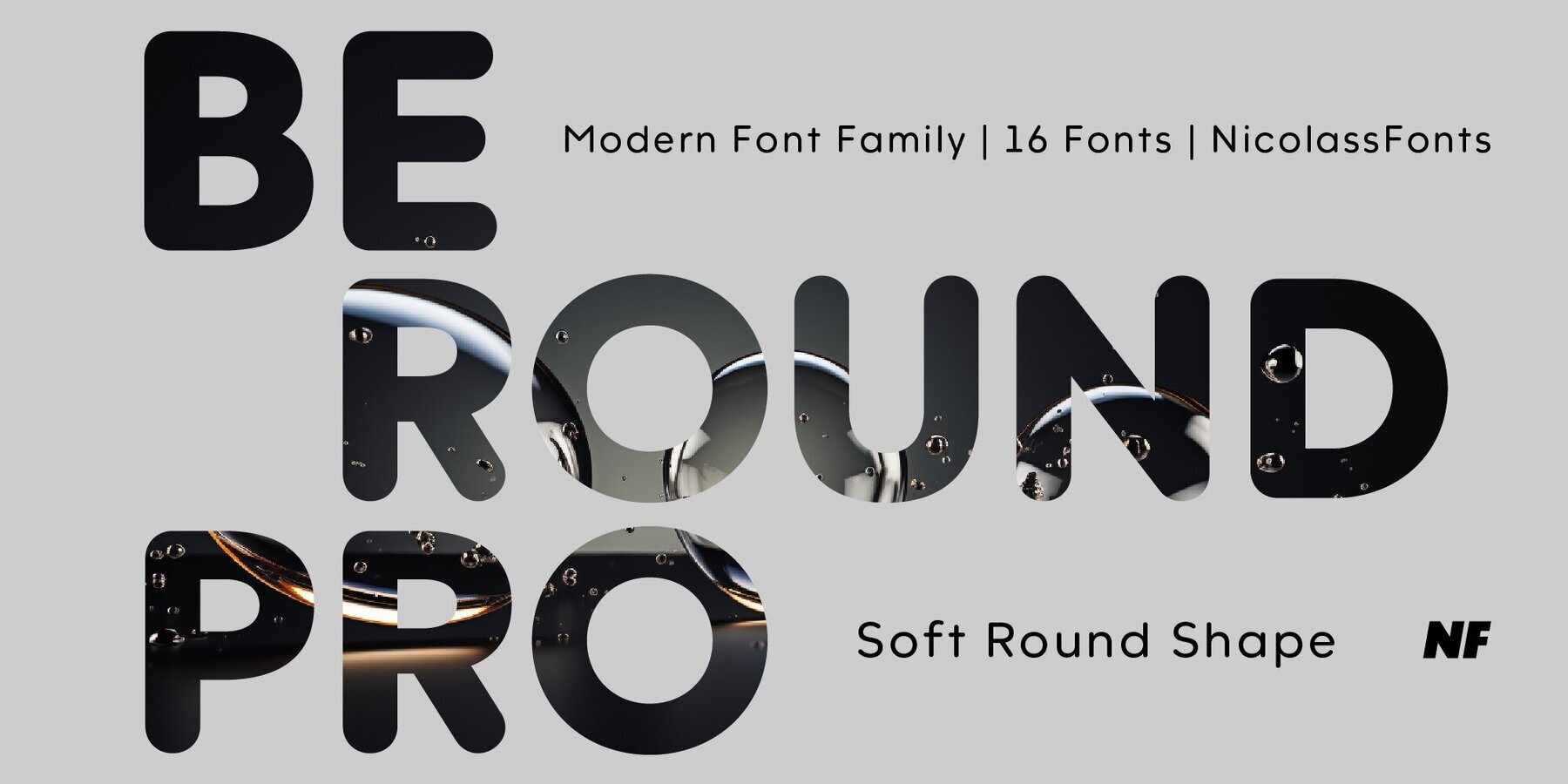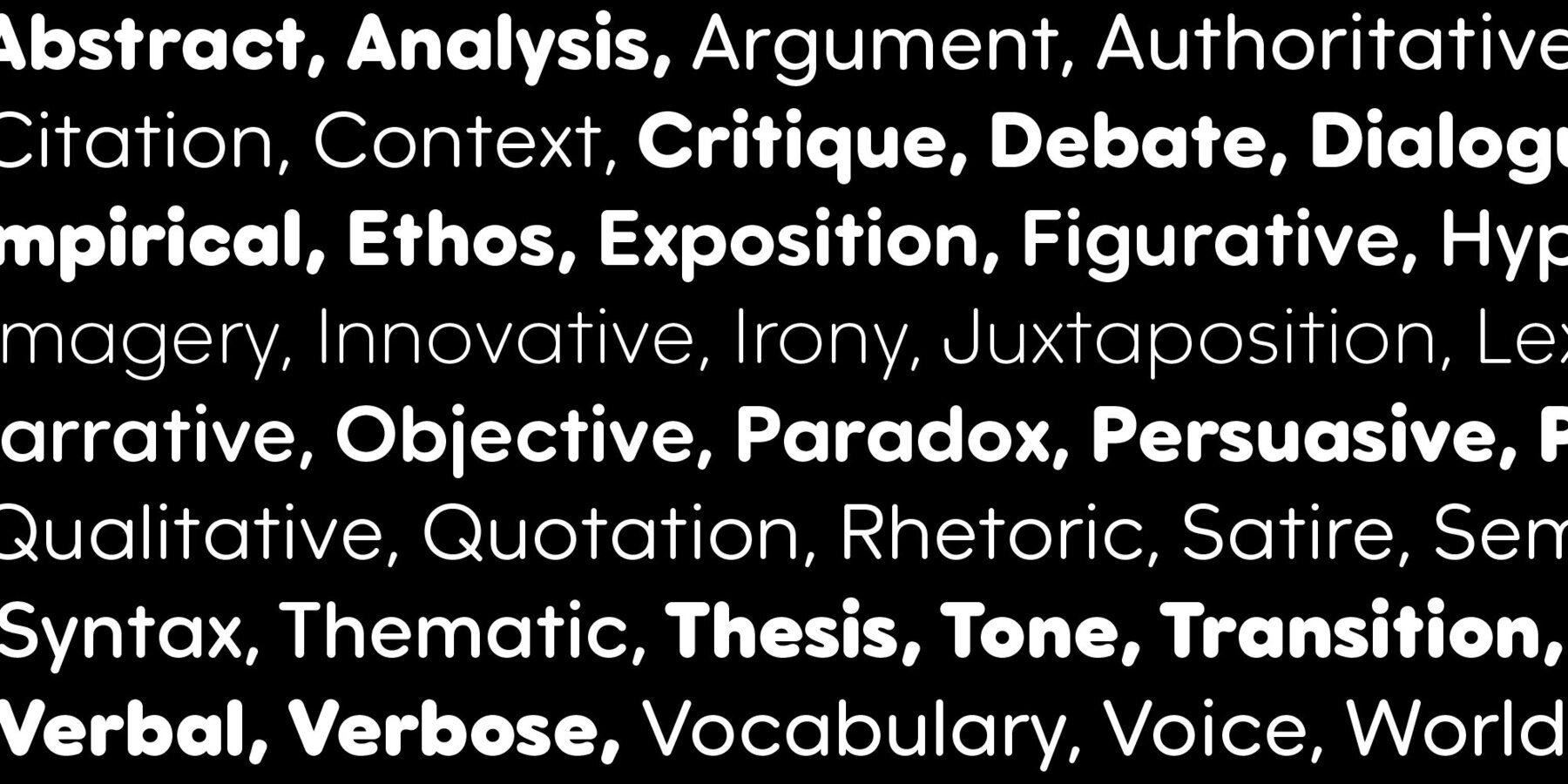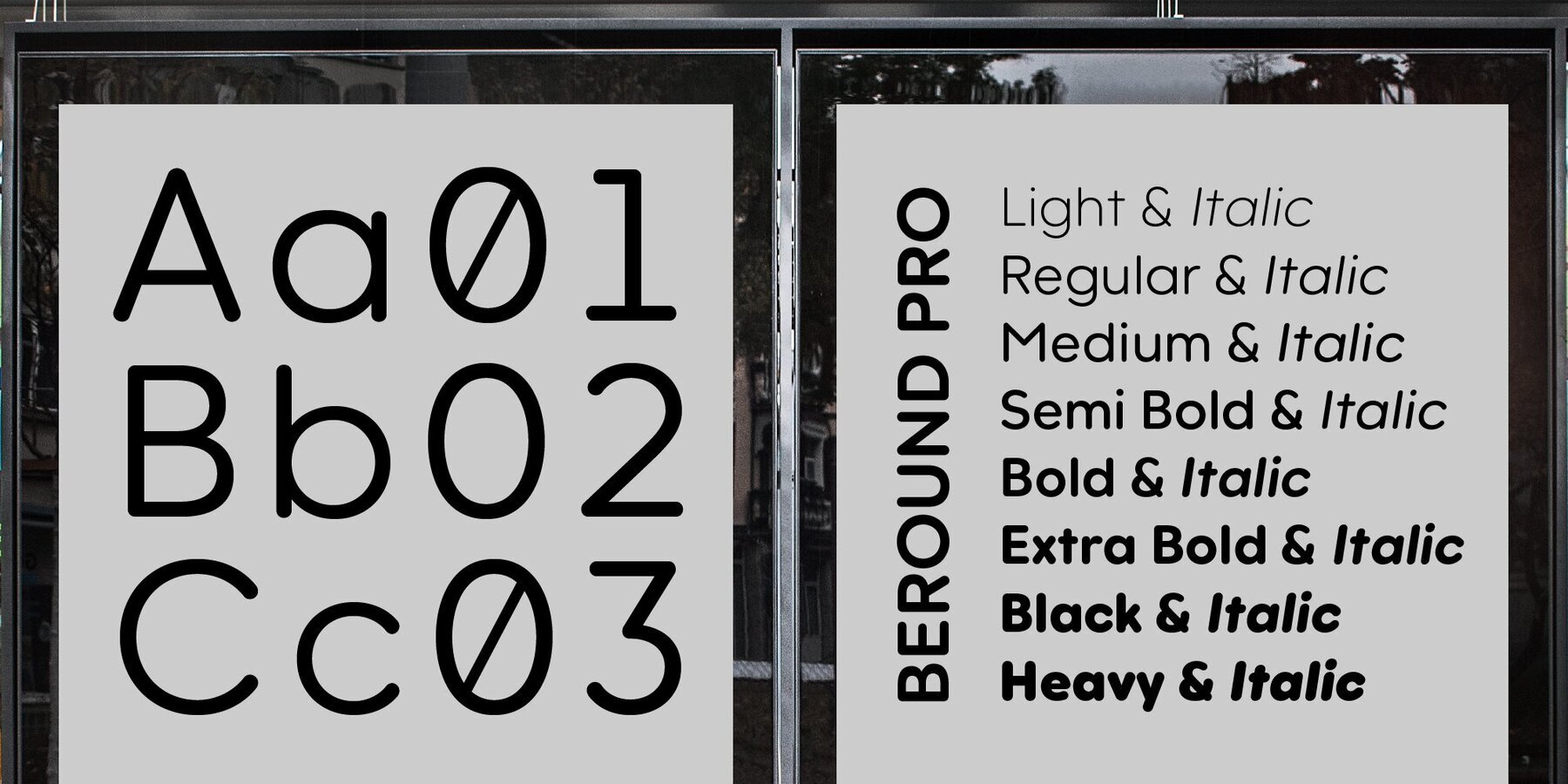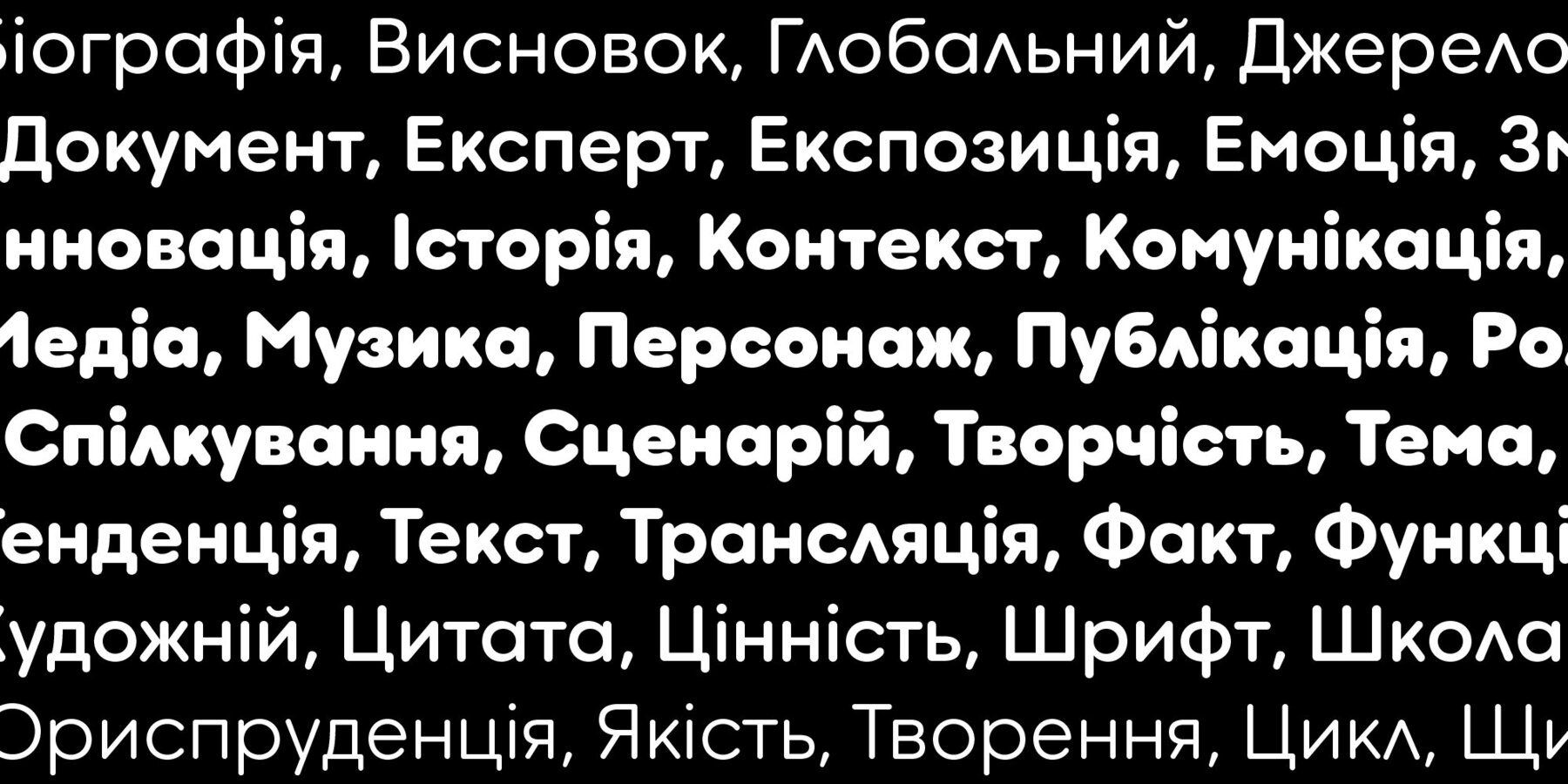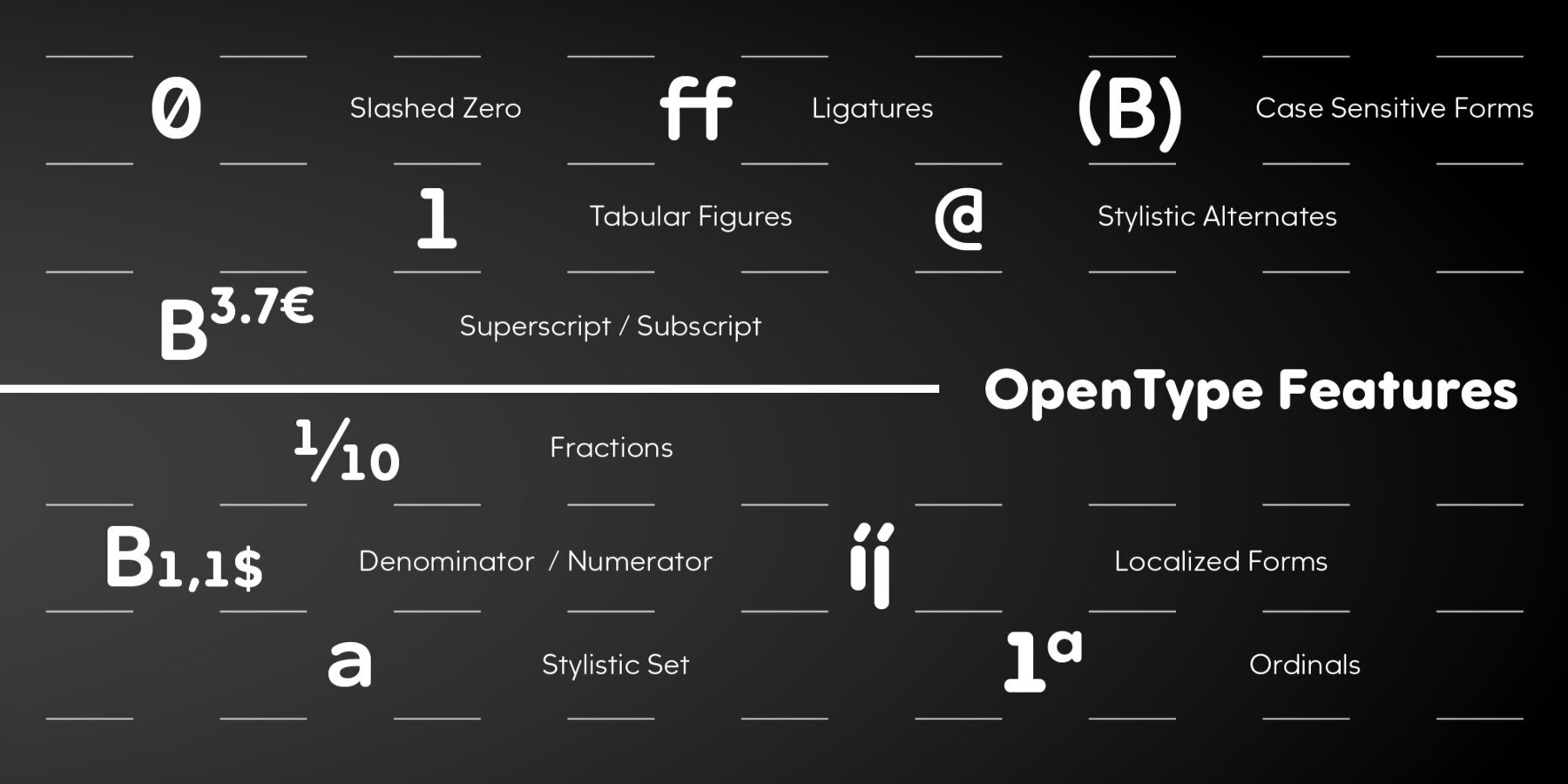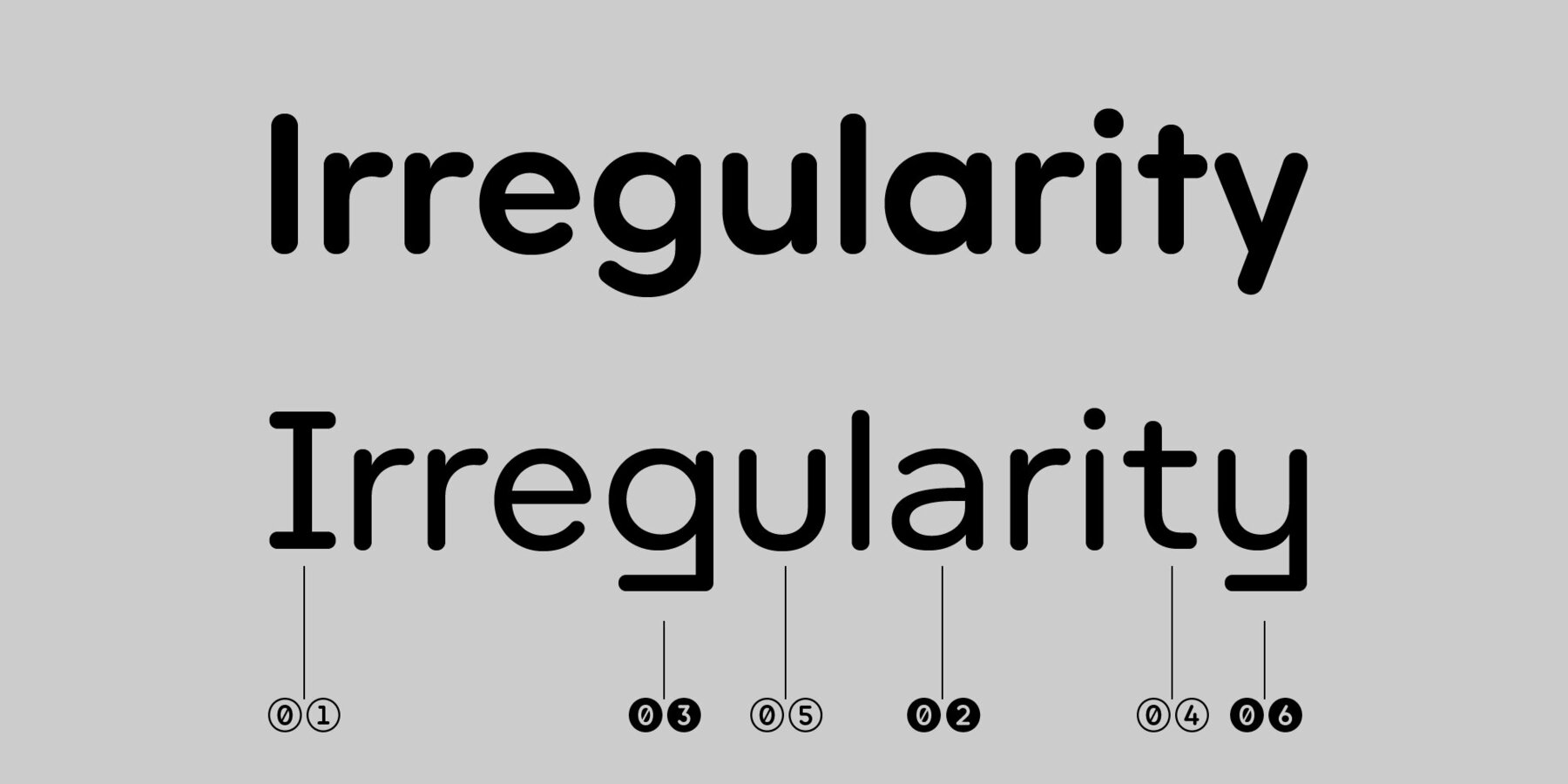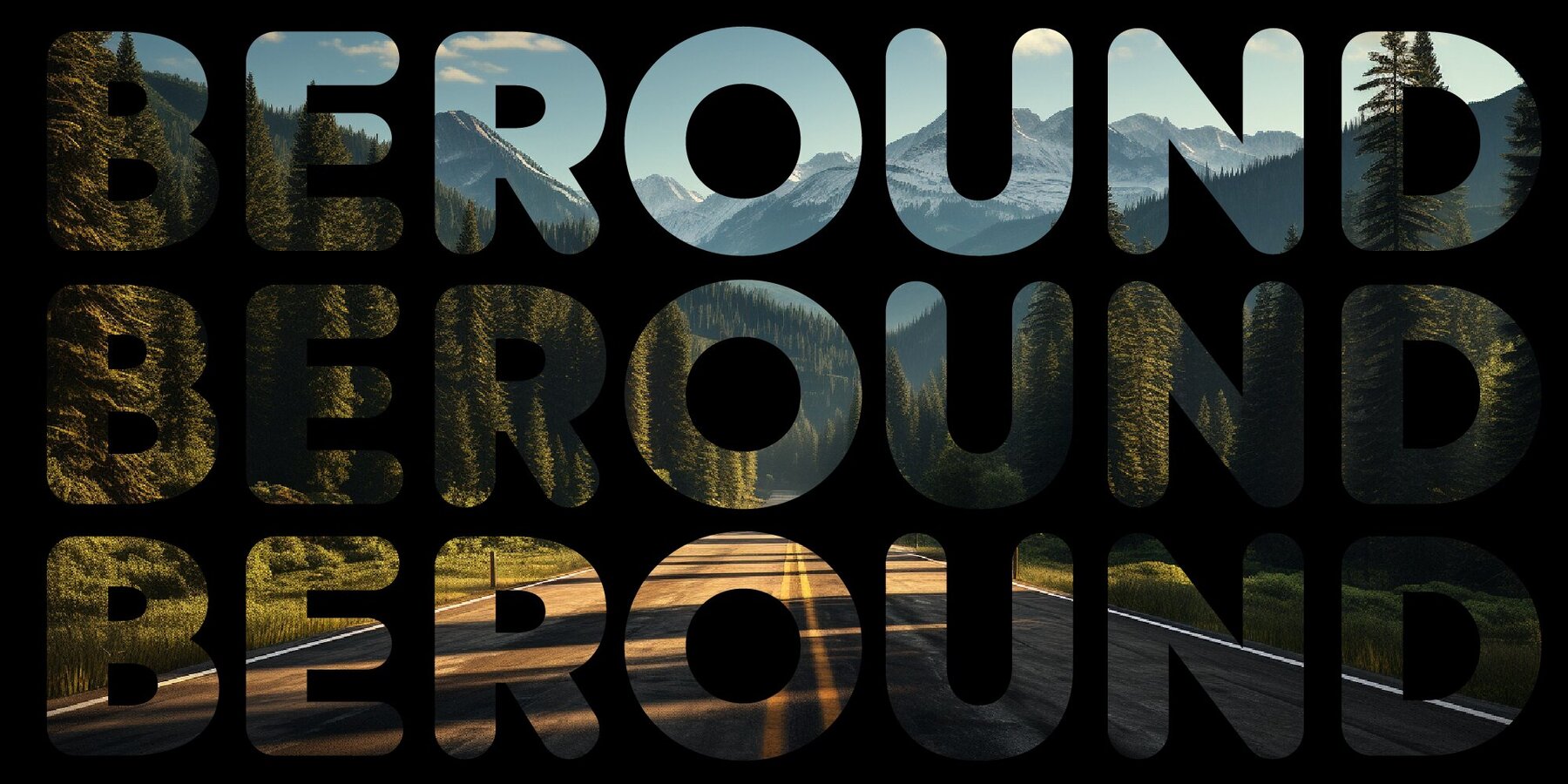
Beround Pro Font
Beround Pro is a contemporary typeface based on the Beround font family, featuring soft, rounded shapes. It offers 16 weights, including 8 uprights and matching italics. Each font includes 1,000 glyphs and supports OpenType features, making it a versatile choice for branding, marketing, and digital design.
Savchuk Mykola began his career as a graphic designer. Over time, he had a desire to create a font that would reflect his view of typography. ‘They say that all ingenious things are simple, although unique. In my future projects, I want to reflect simplicity on the one hand and uniqueness on the other, providi...